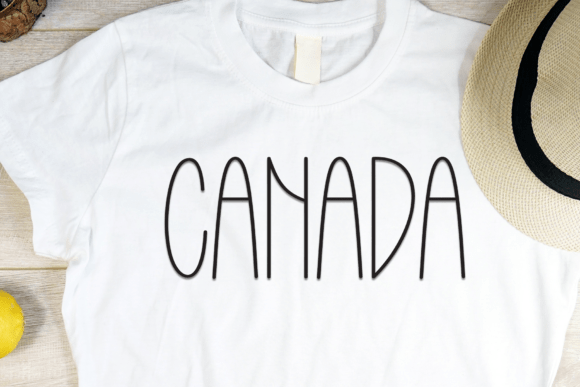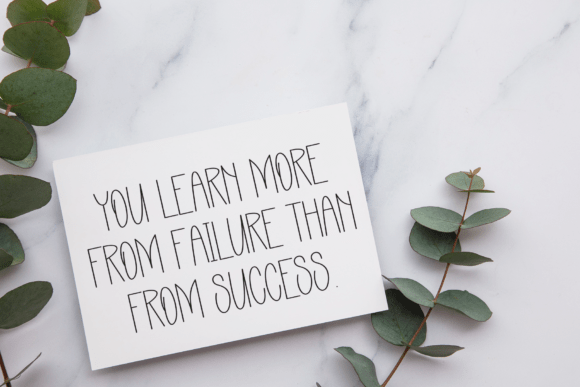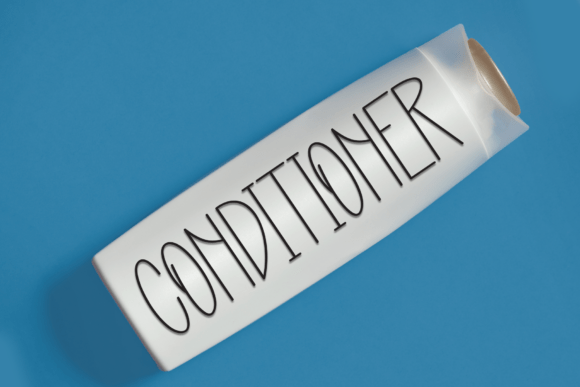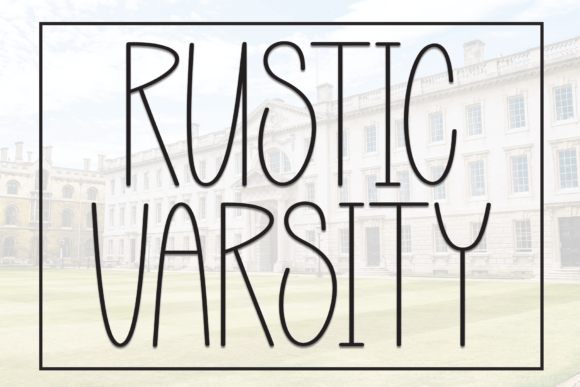
Introduction to Rustic Varsity Font
Rustic Varsity is a neat and casual display font that radiates fun and relaxation.
With clean lines and an easygoing vibe, it’s perfect for summer posters, event flyers, and playful branding This cheerful typeface brings a breezy, laid-back feel to any creative project or message.
Rustic Varsity Font offers exceptional quality and versatility, making it a valuable addition to your design toolkit. Whether you’re creating for personal projects or commercial use, Rustic Varsity Font delivers professional results.